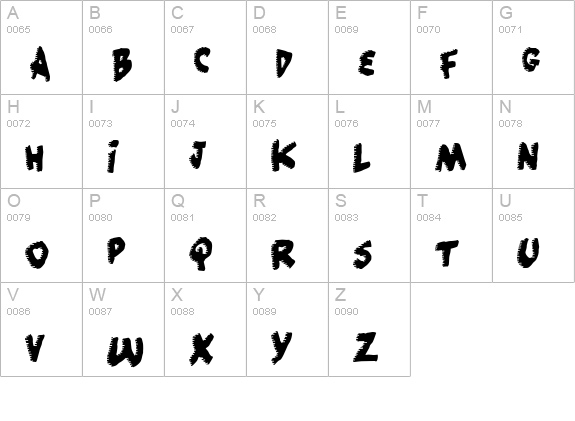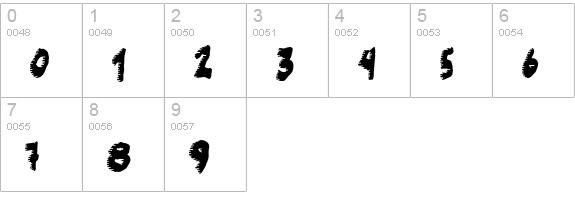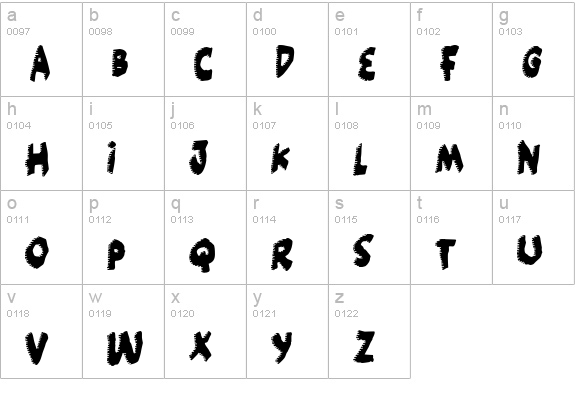
Popcorn NOT included Font Details
Introducing Popcorn NOT included font, a playful and whimsical typeface that exudes charm and personality. This font is perfect for adding a touch of fun to your designs, whether you're working on invitations, posters, or branding projects. With its quirky and hand-drawn style, Popcorn NOT included font is sure to capture attention and make your text stand out. The irregular lines and imperfect shapes give this font a unique and artistic flair that sets it apart from other typefaces. Best of all, Popcorn NOT included font is completely free to download at FontsMarket.com. Simply visit the website and start using this delightful font in your projects today. Let your creativity soar with Popcorn NOT included font and bring a touch of whimsy to your designs.